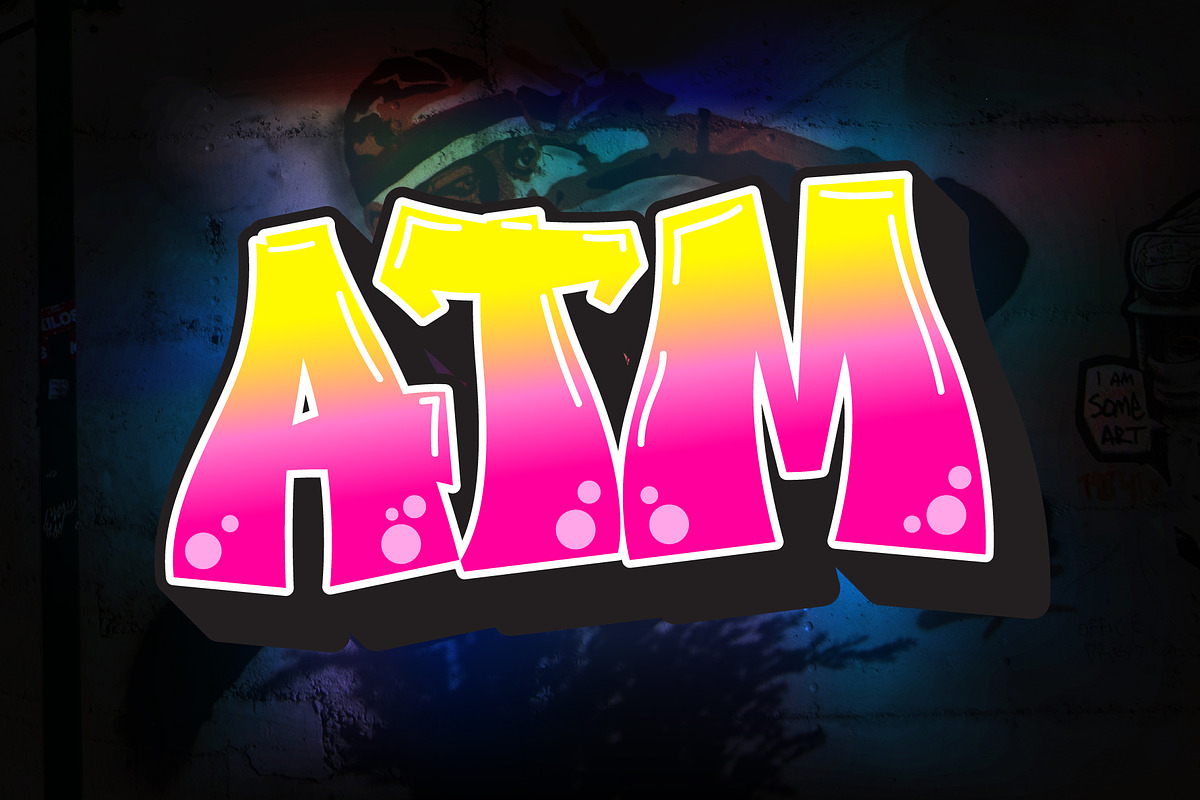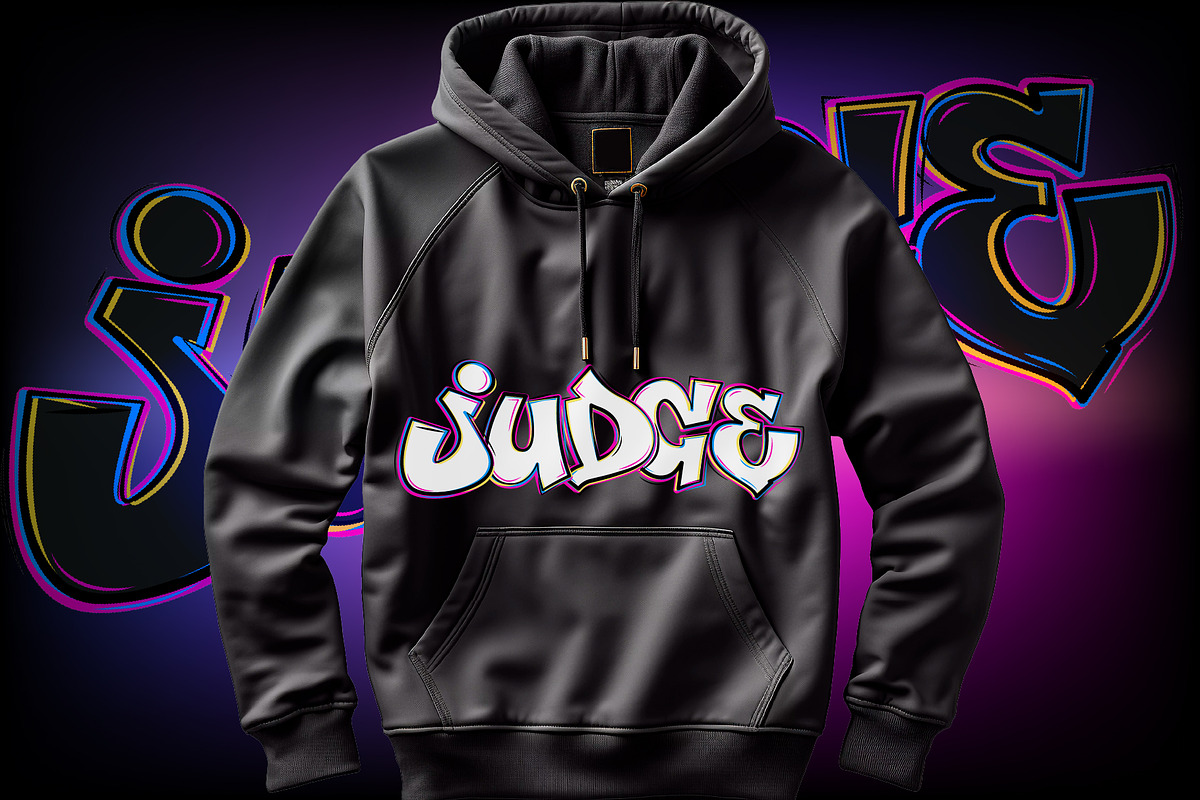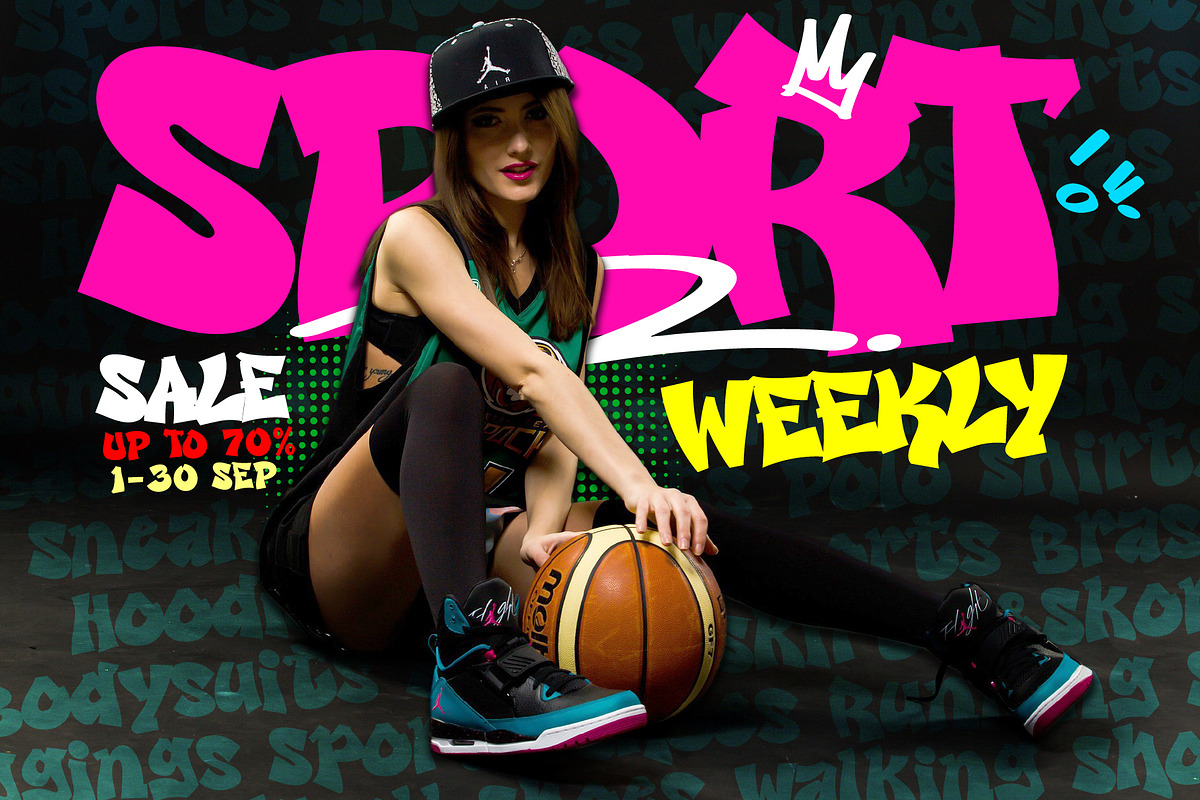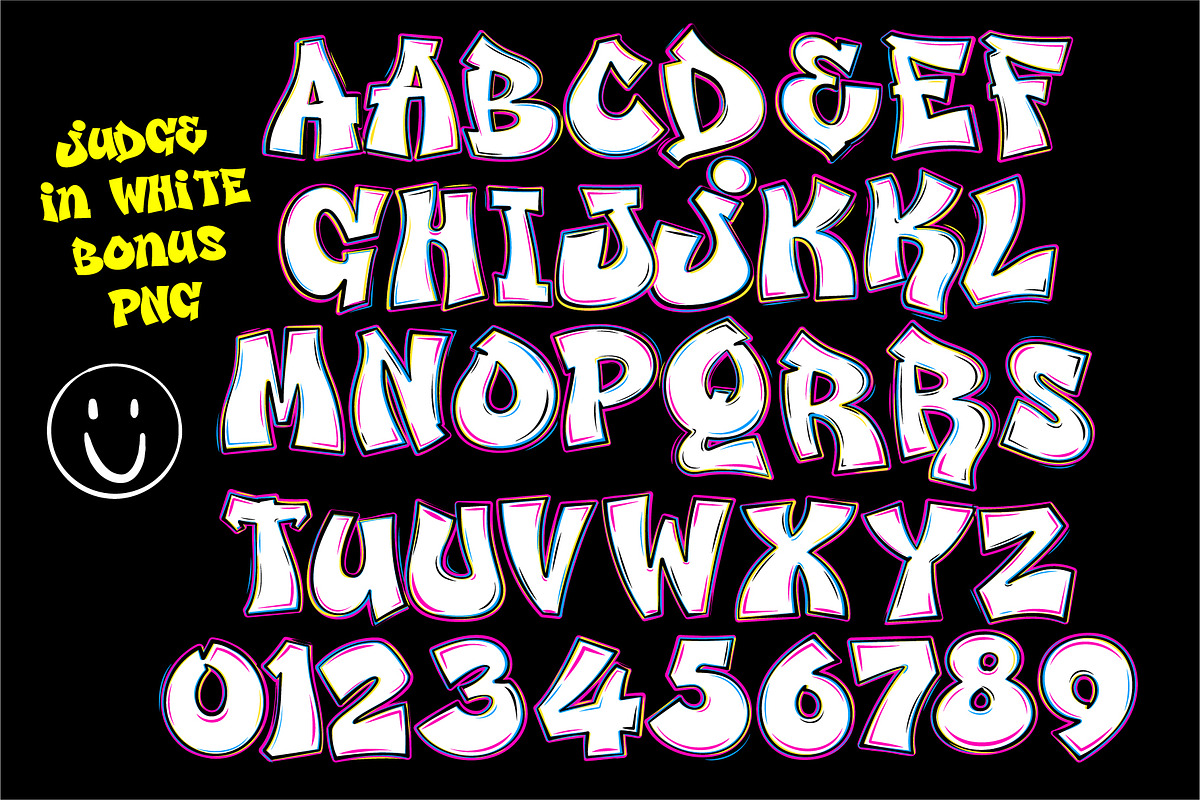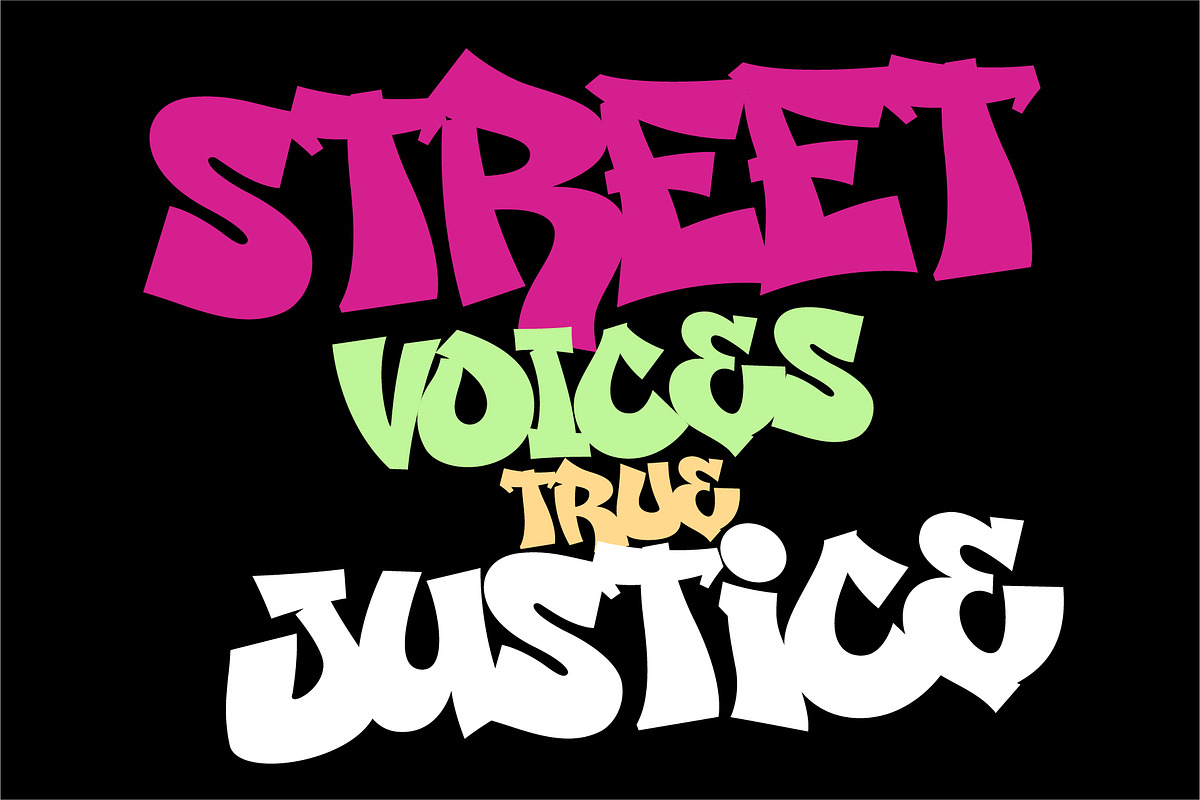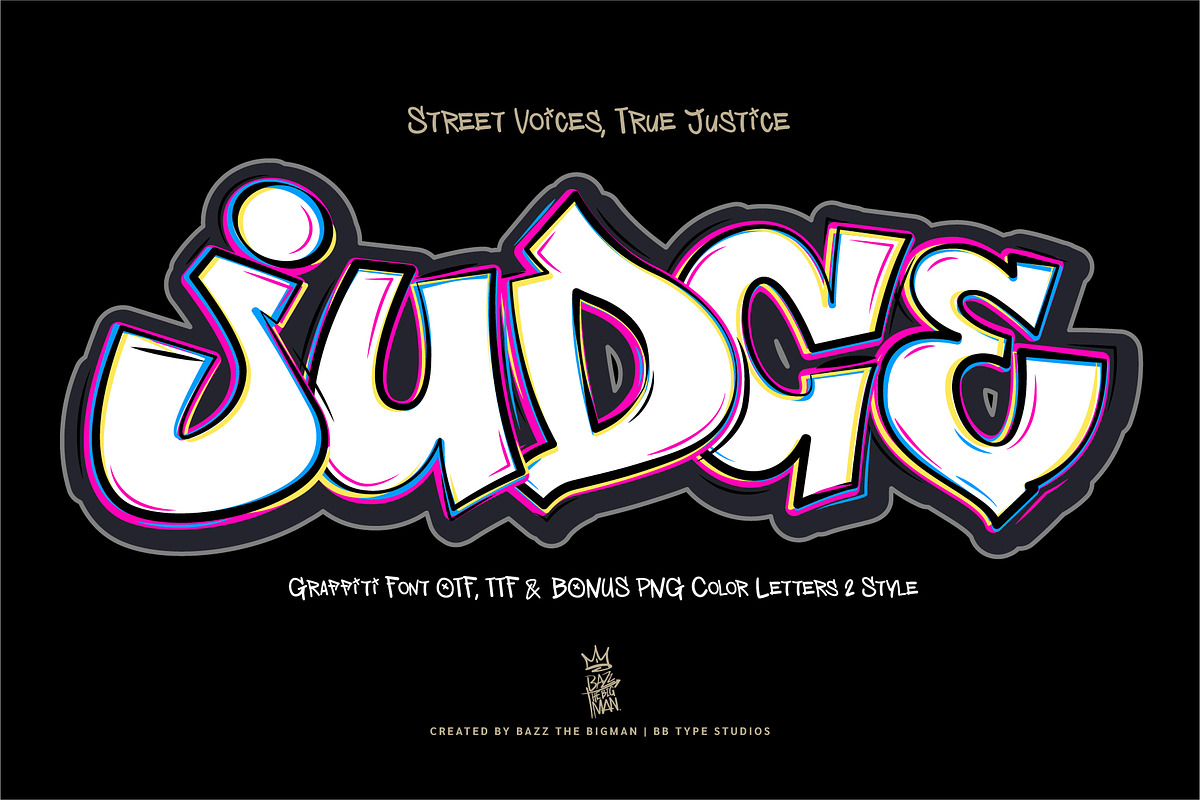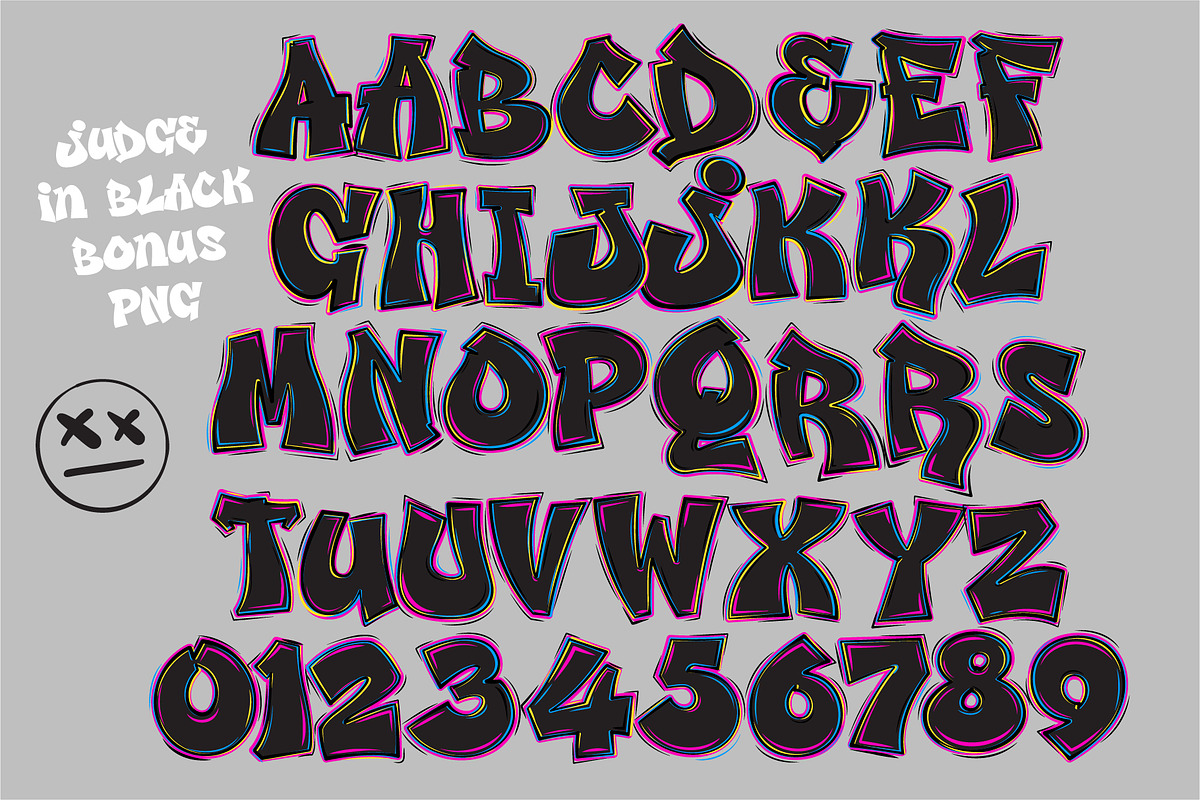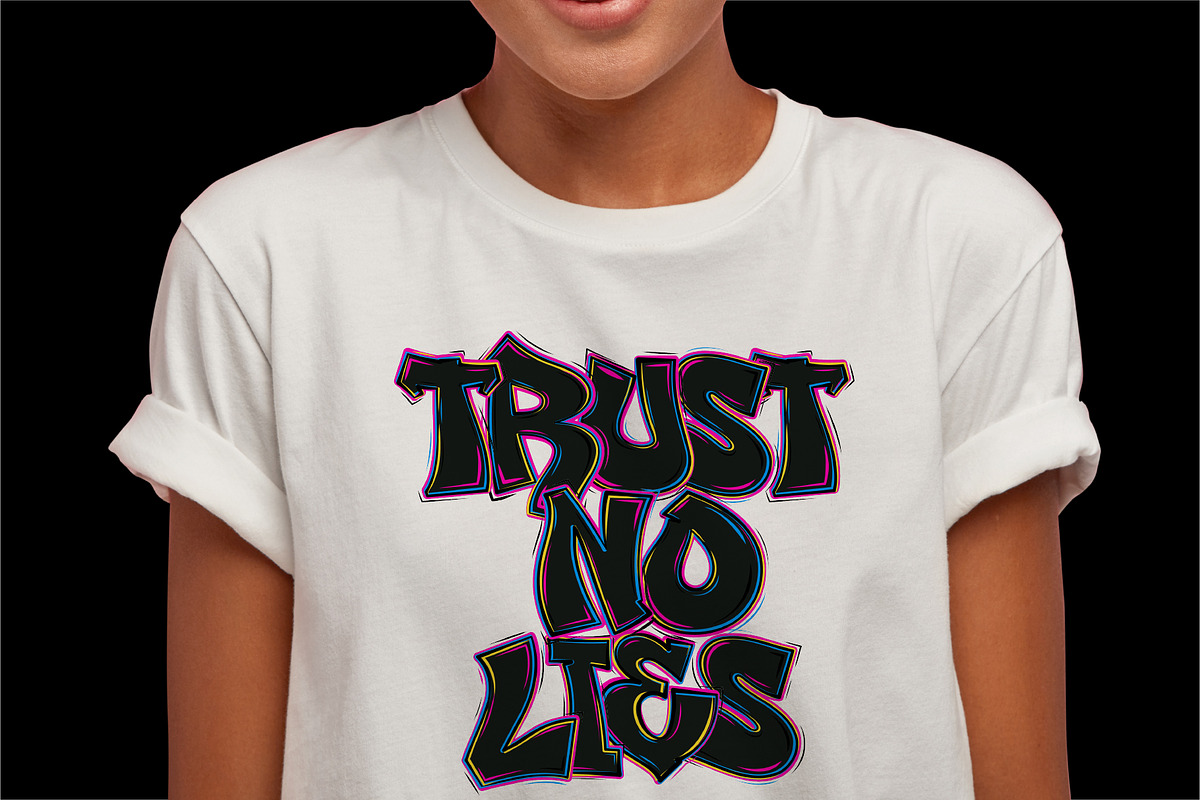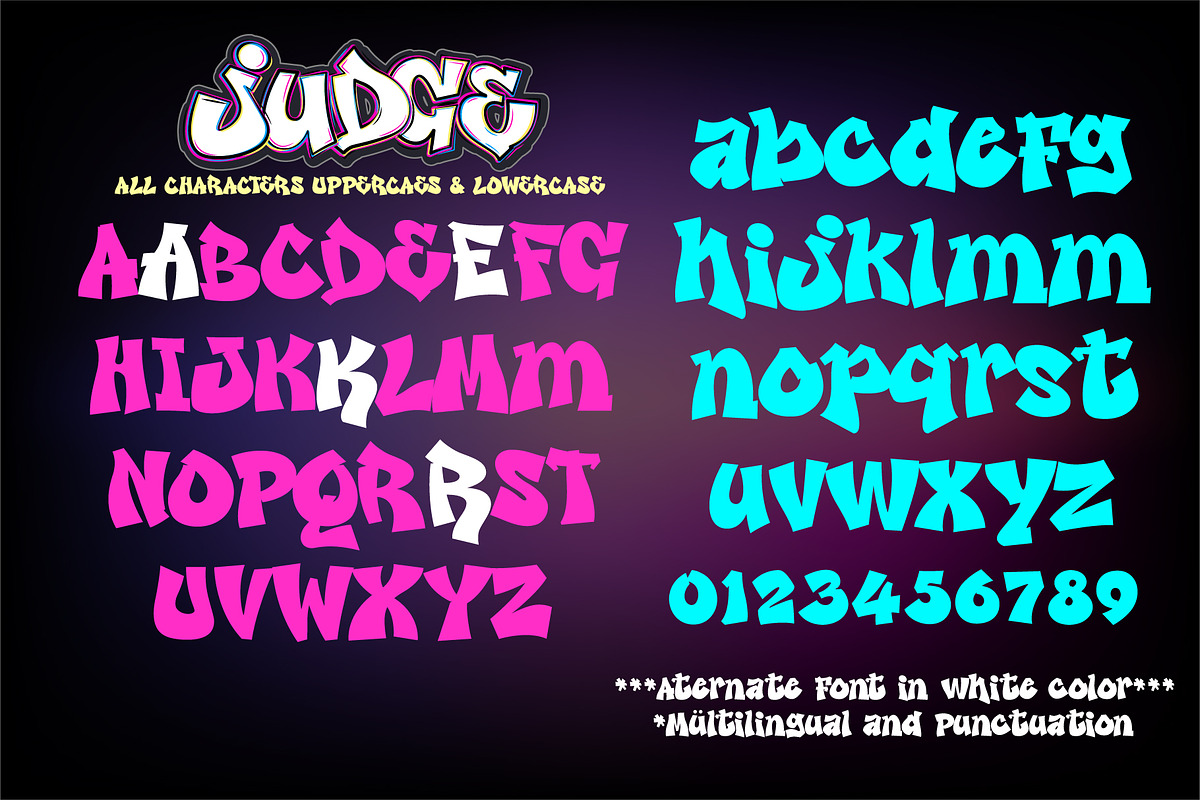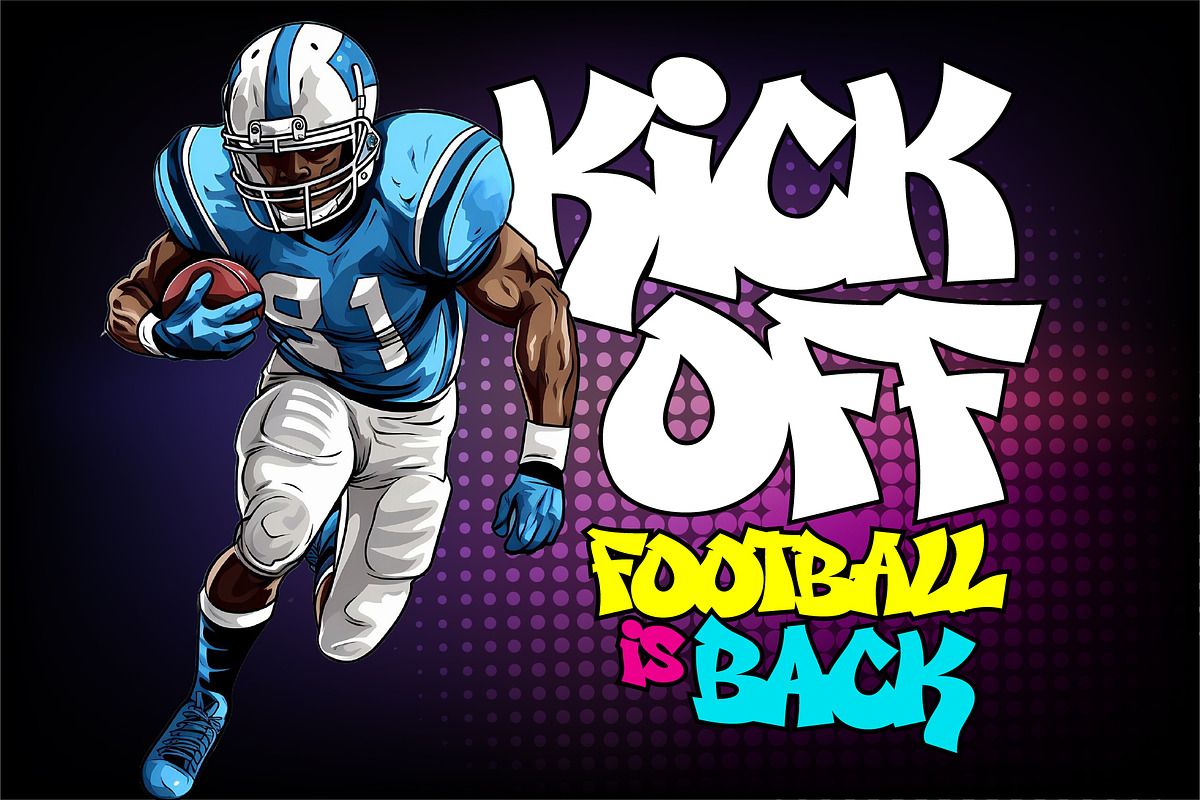
Judge
Witness the power of expression with Judge, a dynamic graffiti-inspired typeface that effortlessly intersects the world of street art and urban aesthetics. Imbued with an audacious essence, Judge is associated with streetwear culture, sport-themed designs, album artwork, and poster creations. It encapsulates the boundary-pushing spirit of graffiti, married with the perennial appeal for justice. Every word penned in this font resonates with boldness and personality, crafting a narrative that's audaciously stylish and packed with charisma.